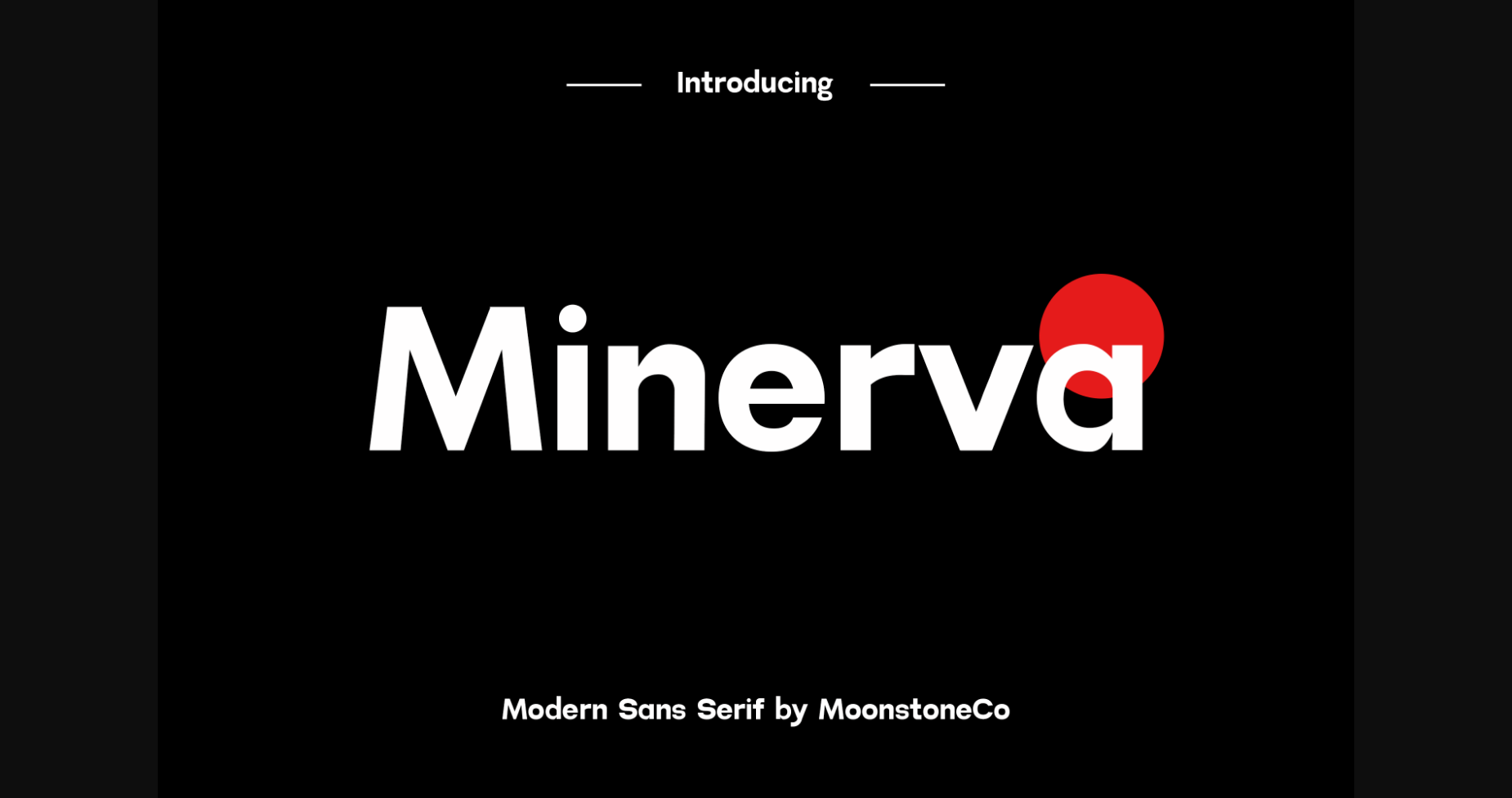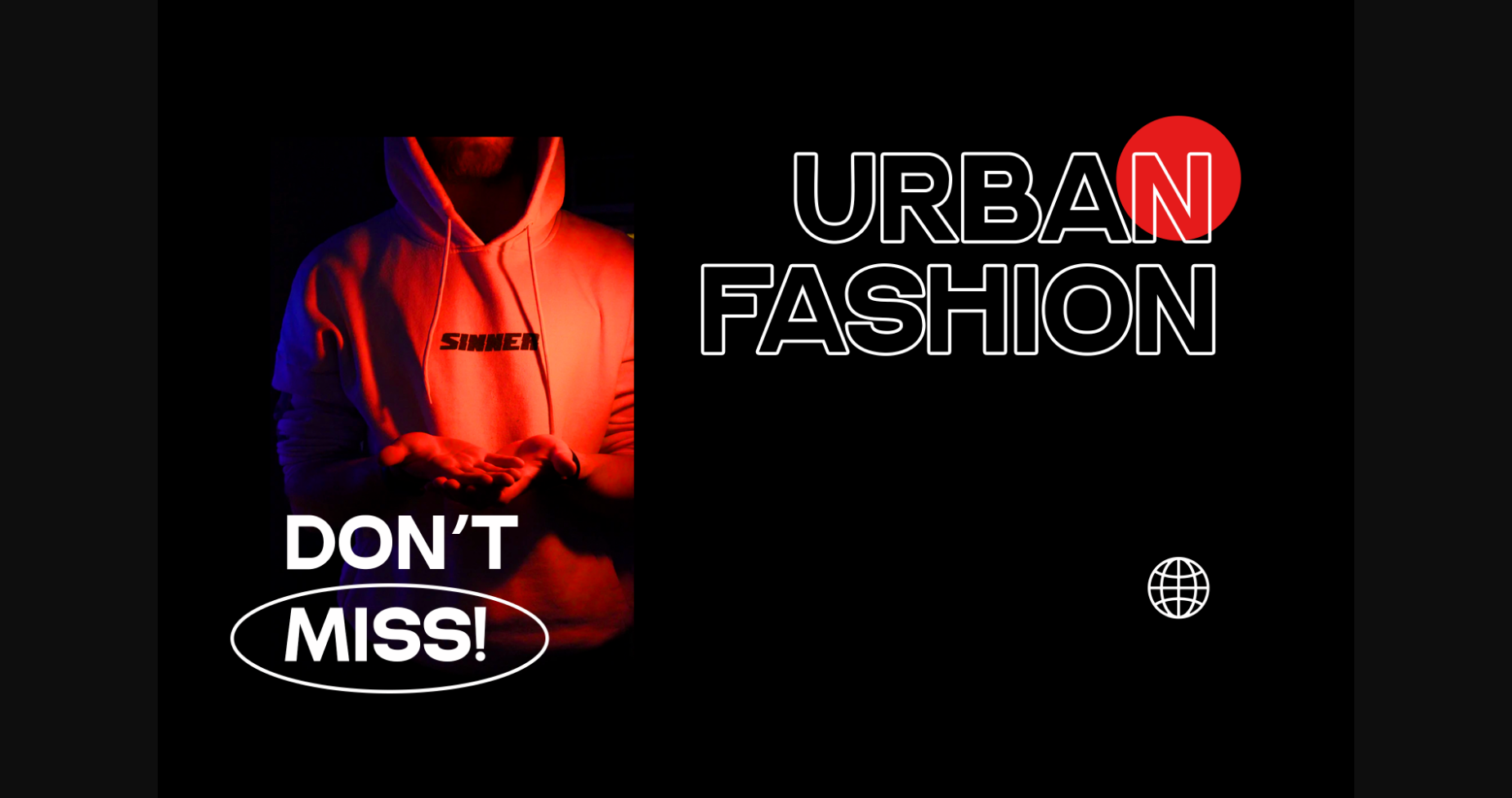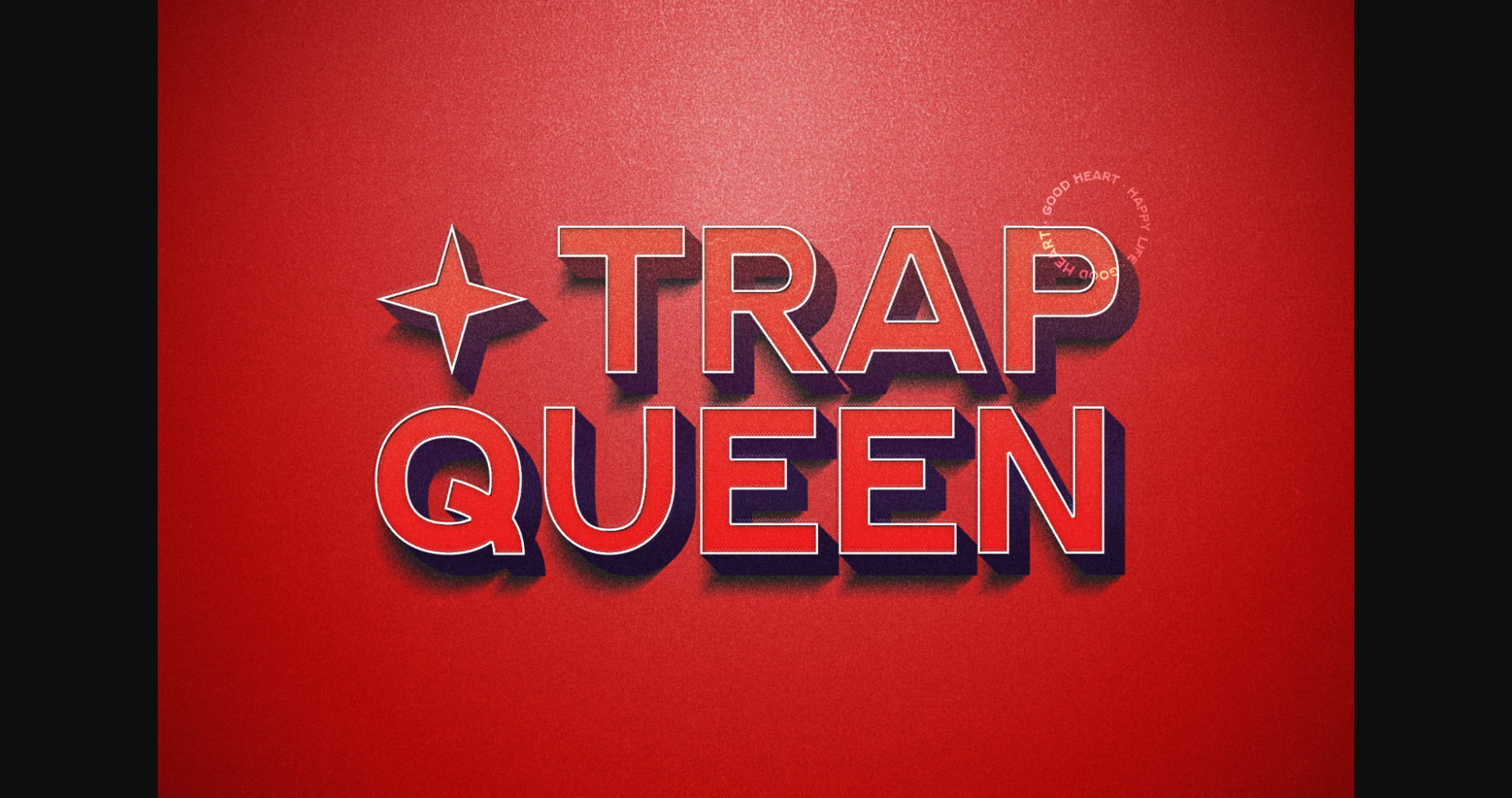
About Minerva Font
Minerva is a modern sans serif font. It can easily be matched to an incredibly large set of projects, so add it to your creative ideas and notice how it makes them stand out!